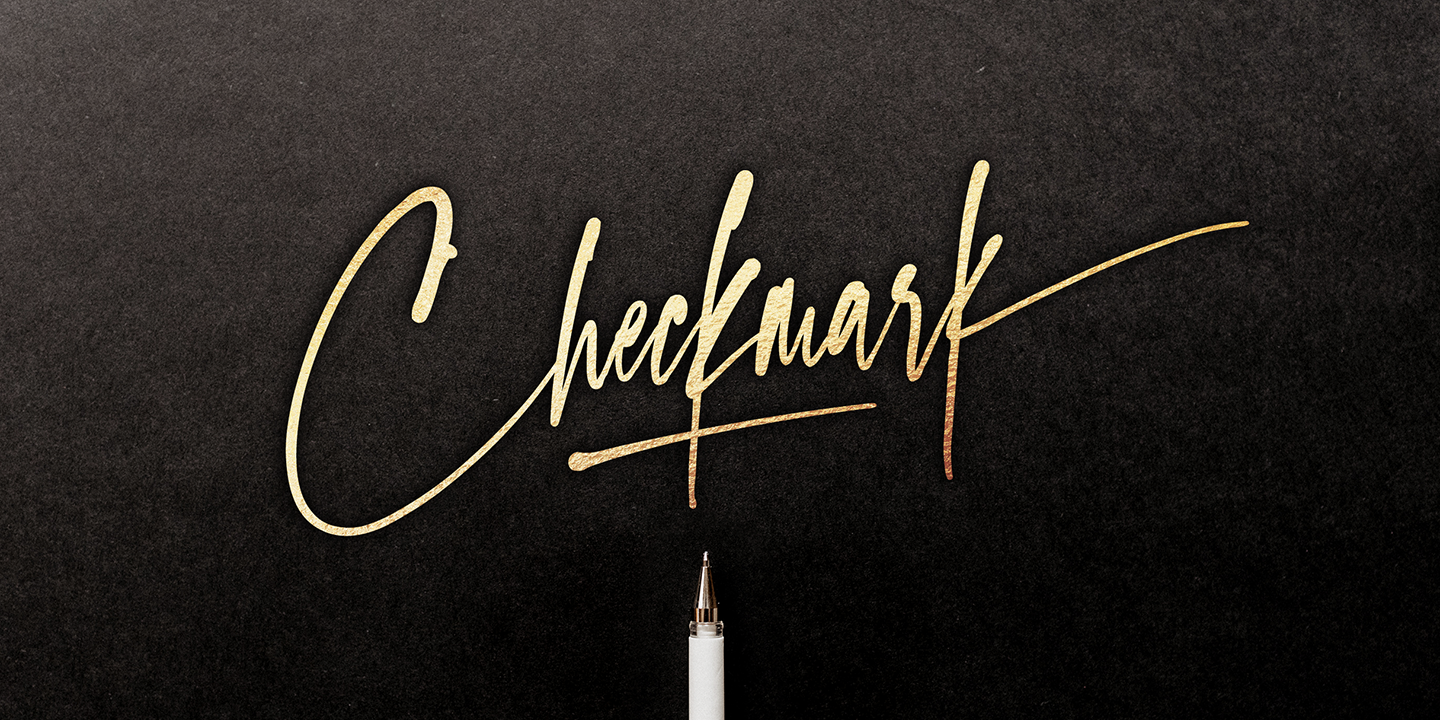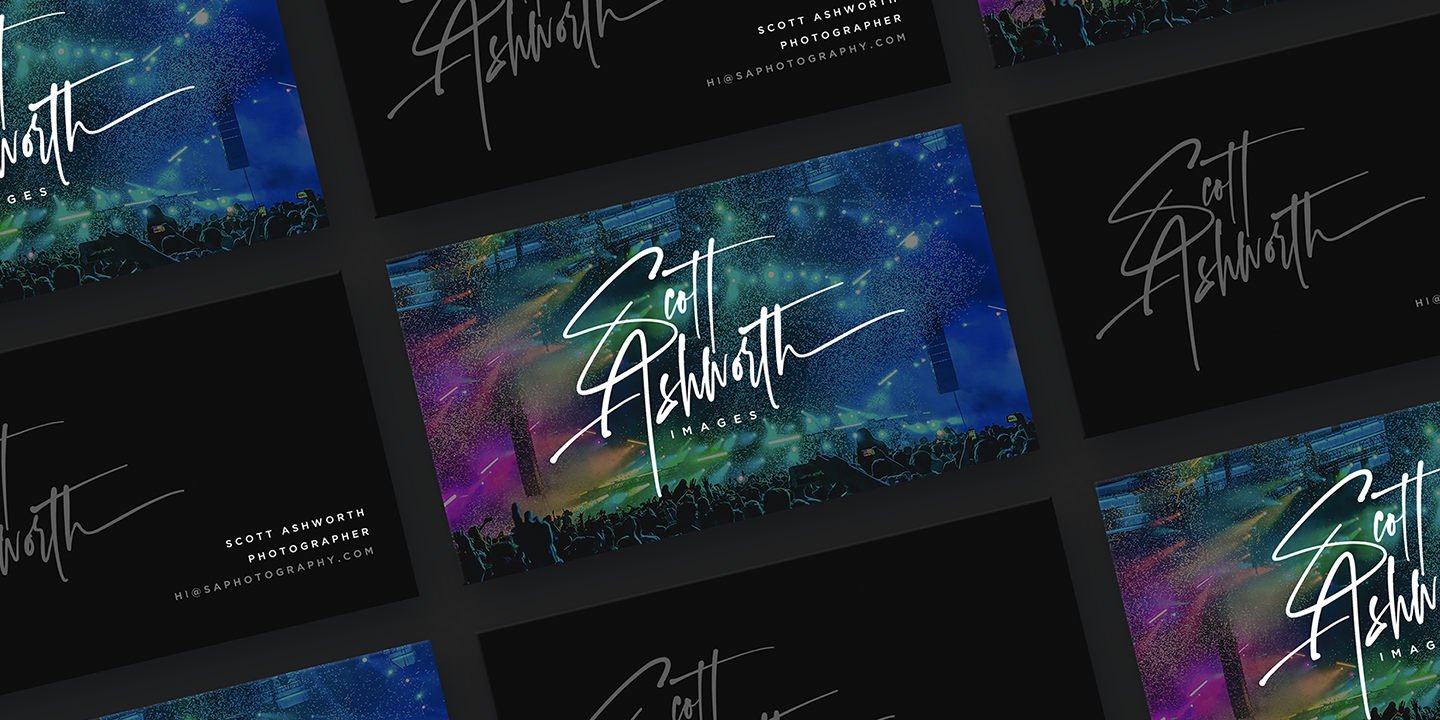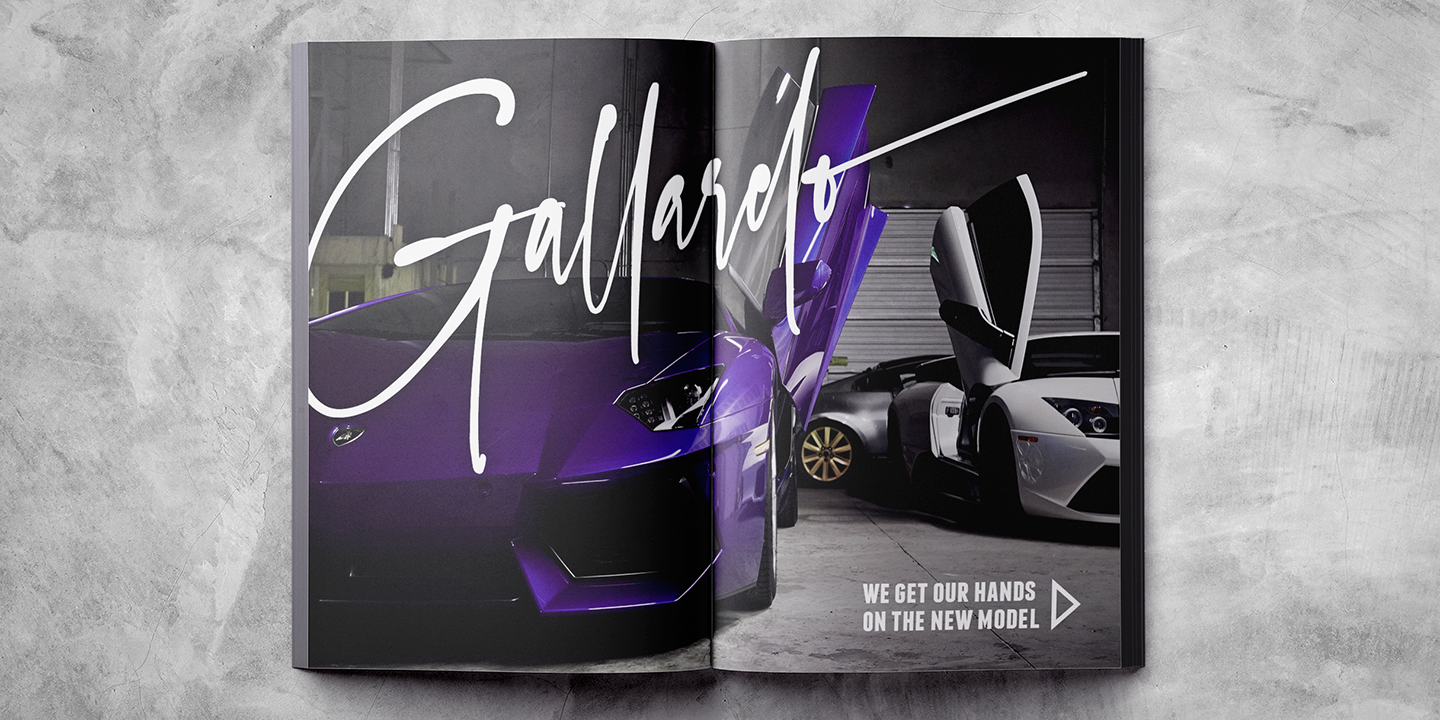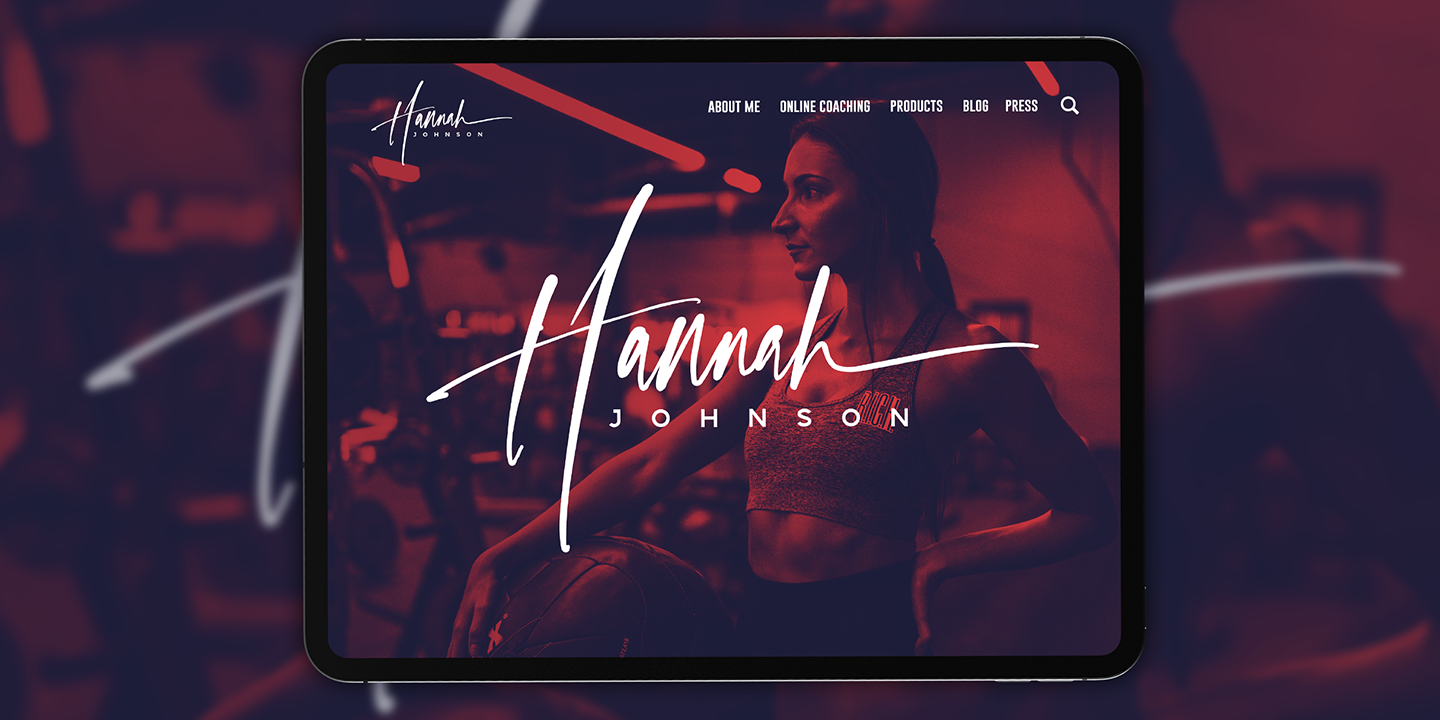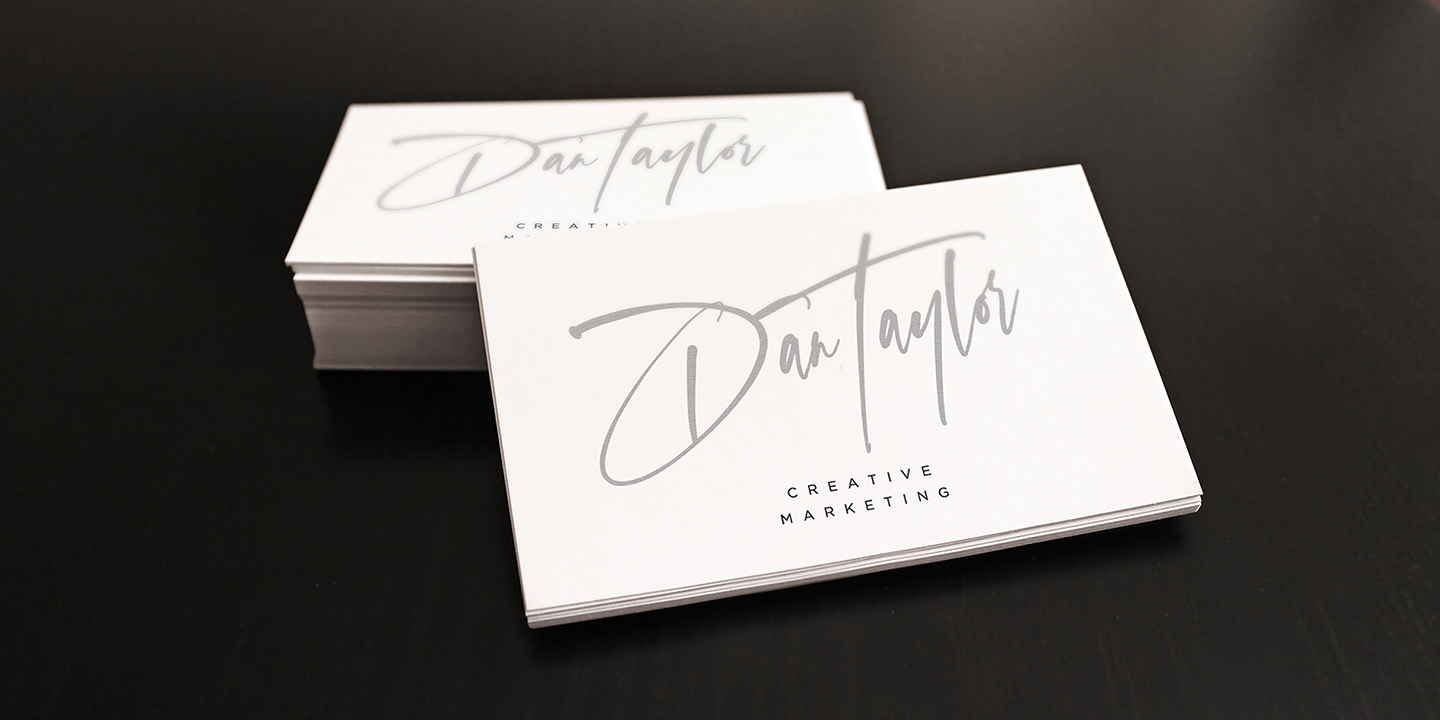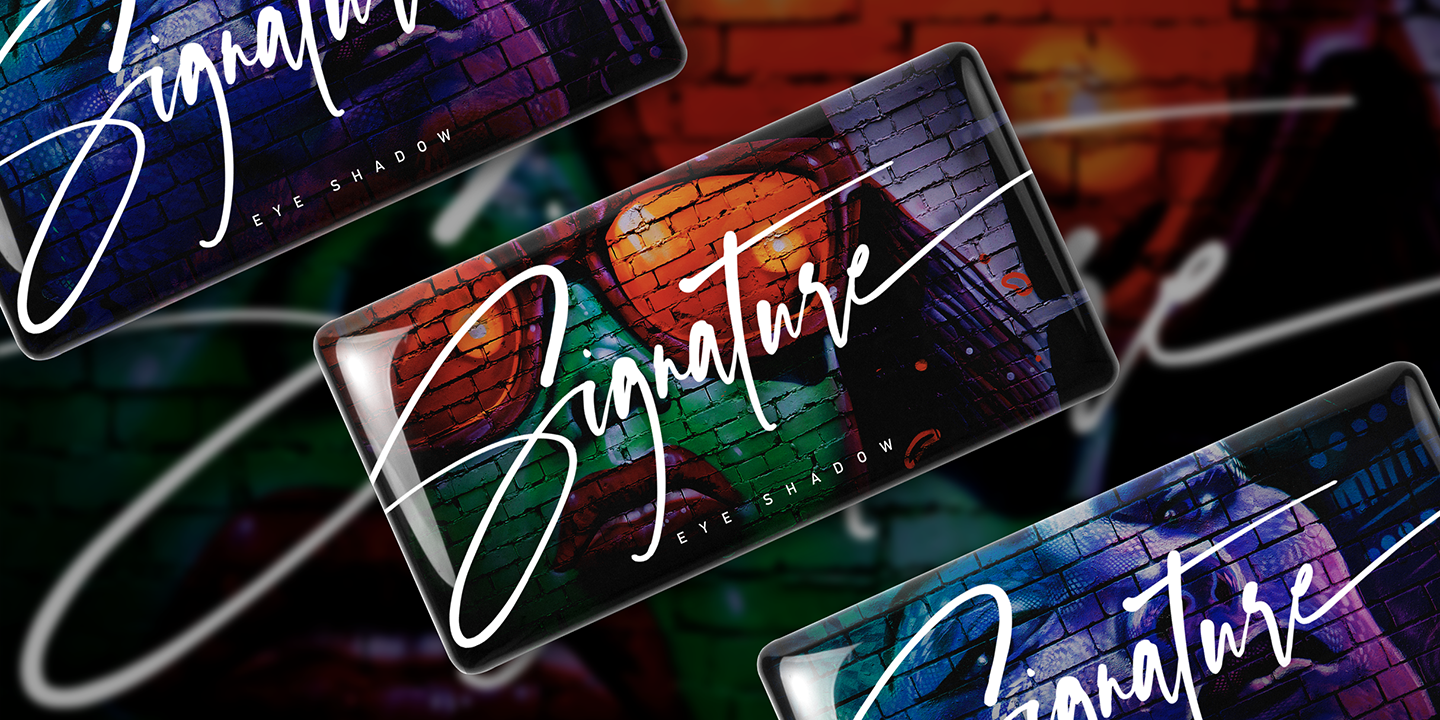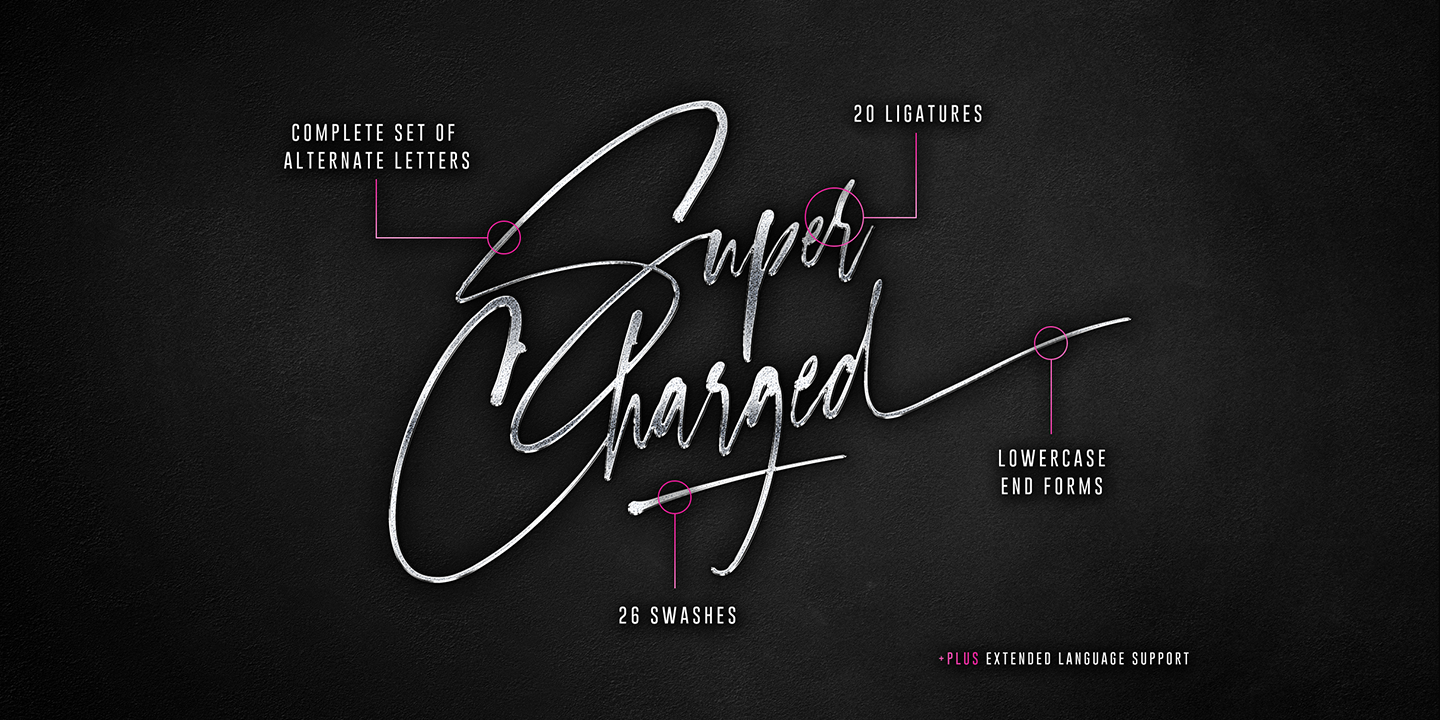
About the Checkmark Font
About Checkmark Font Family Make your mark with Checkmark; a slick, high energy signature-style script font guaranteed to make a big impression, Digitally hand-drawn, it’s super-clean smooth flow and high-intensity pen strokes make an unmistakeable impact in logo/branding projects, large header text and product packaging, Checkmark is packed full of extra features to give you plenty of customization options
This includes; a full set of upper and lowercase alternate letters, 20 ligatures (double letters) to help the script lettering flow more naturally, 26 swashes and a full set of lowercase end forms to give your text that extra flair and finesse, Here’s a run through everything in more detail;Checkmark • A smooth-edged signature style font containing upper & lowercase characters, numerals, and a large range of punctuation
Checkmark Alt • This is a second version of Checkmark, with a completely new set of both upper and lowercase characters, If you wanted to avoid letters looking the same each time to recreate a custom-made style, or try a different word shape, simply switch to this font for an additional layout option
Checkmark Swash • A third font containing 26 hand drawn swashes, Simply type any a-z or A-Z character in this font to generate a swash, Perfect for underlining your Checkmark text and adding a bit of extra flair!Ligatures • 20 ligatures (double-letters) are included to help your lettering flow more naturally
Many programs will automatically have this feature switched on for you, but if you need any help accessing them, please feel free to drop me a message, End forms • Are available for all lowercase characters when using the Checkmark font, Use these characters at the end of your word to add a stylistic ‘end-swash’
These are accessible via software with opentype capability, by turning on ‘Stylistic Alternates’, or via a Glyphs panel, Language Support • Checkmark fonts support the following languages; English, French, Italian, Spanish, Portuguese, German, Swedish, Norwegian, Danish, Dutch, Finnish, Indonesian, Malay, Hungarian, Polish, Croatian, Turkish, Romanian, Czech, Latvian, Lithuanian, Slovak, Slovenian